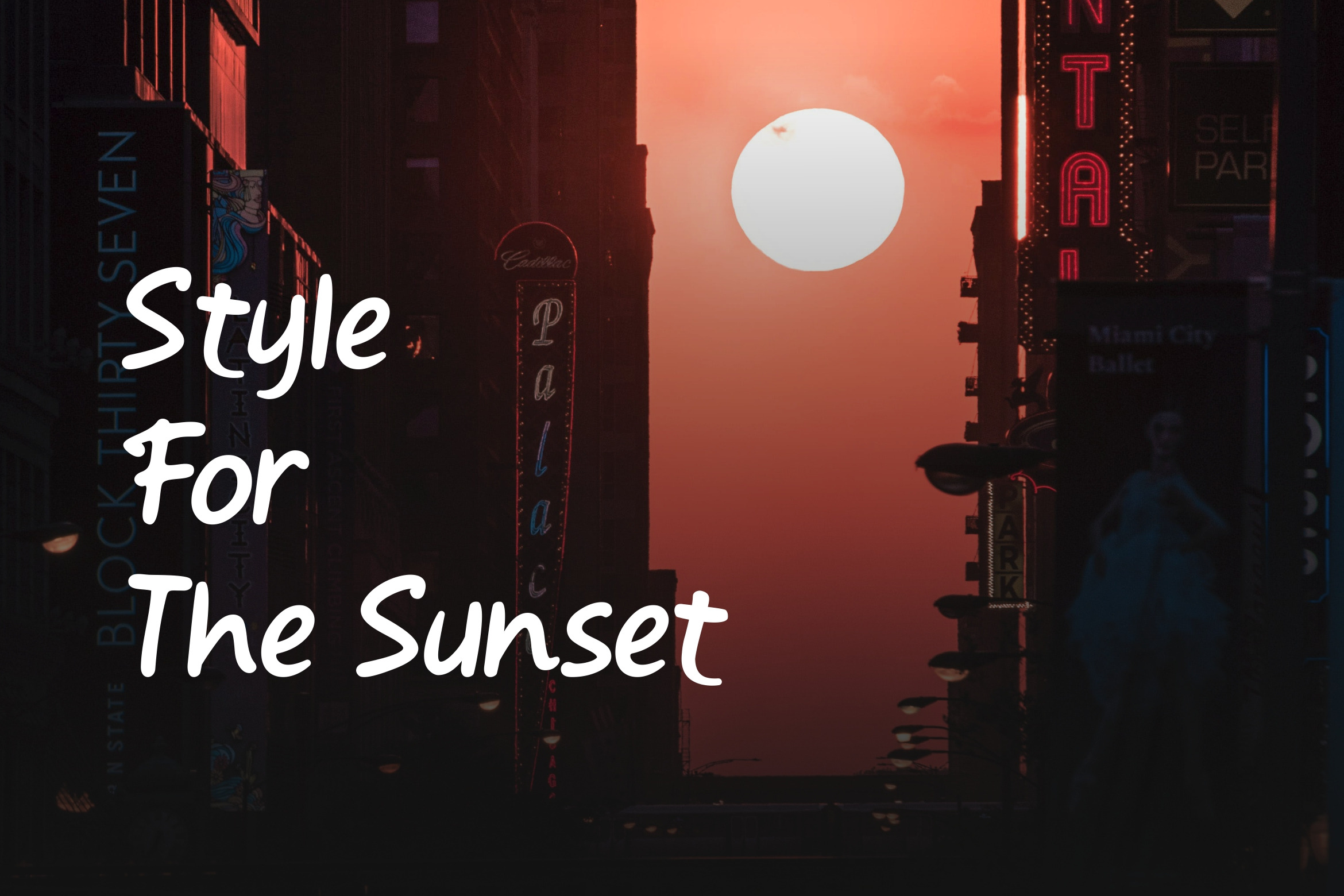
Frecobar Modern Brush Font Style.
Frecobar Modern Brush Font Style – related to travel, history & culture in the present/modern way,lifestyle designs such as logos, title, magazine, and more.